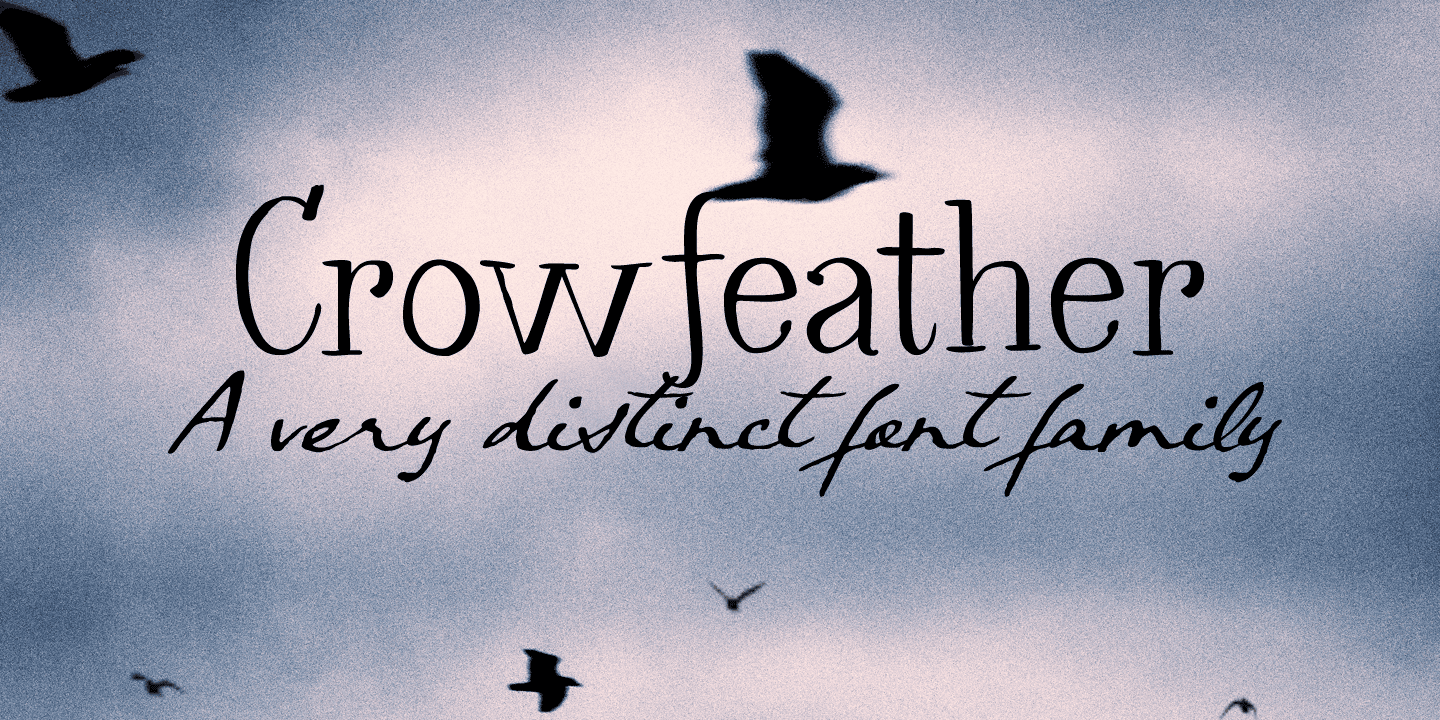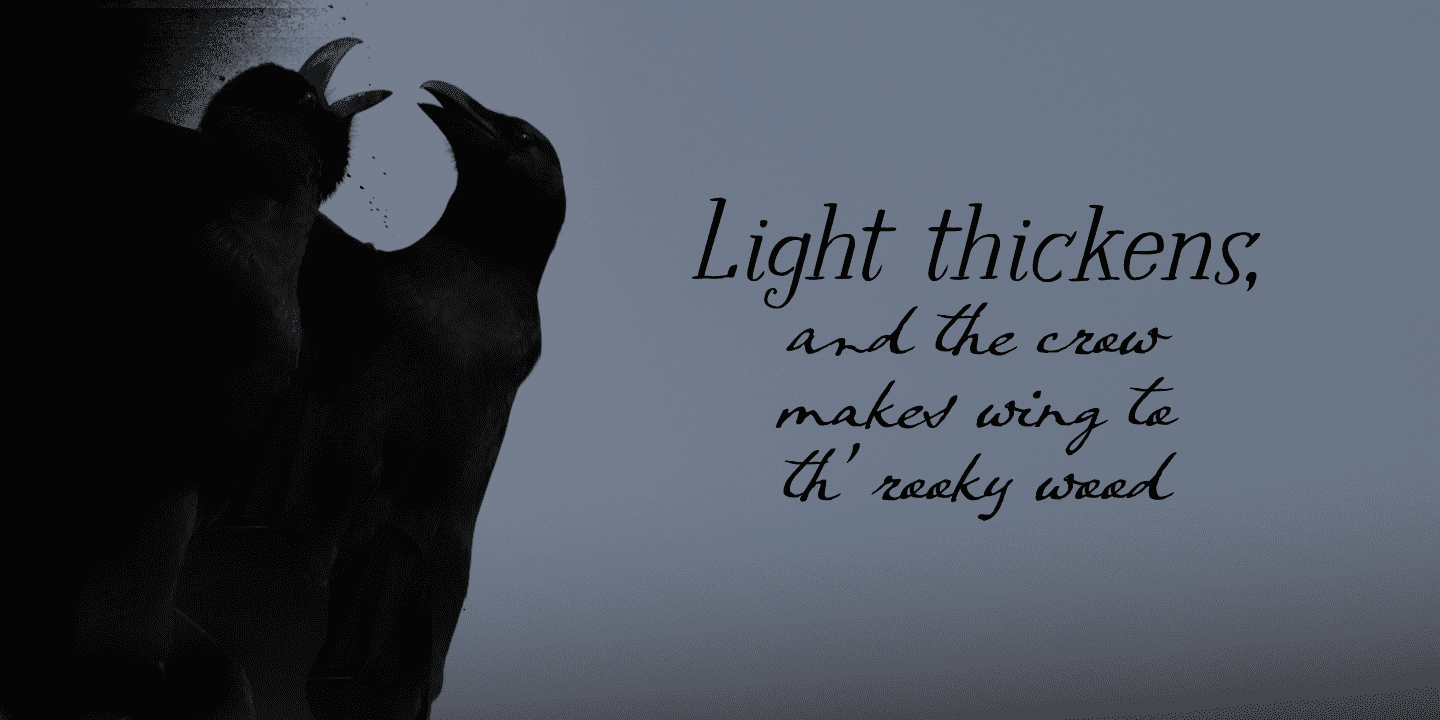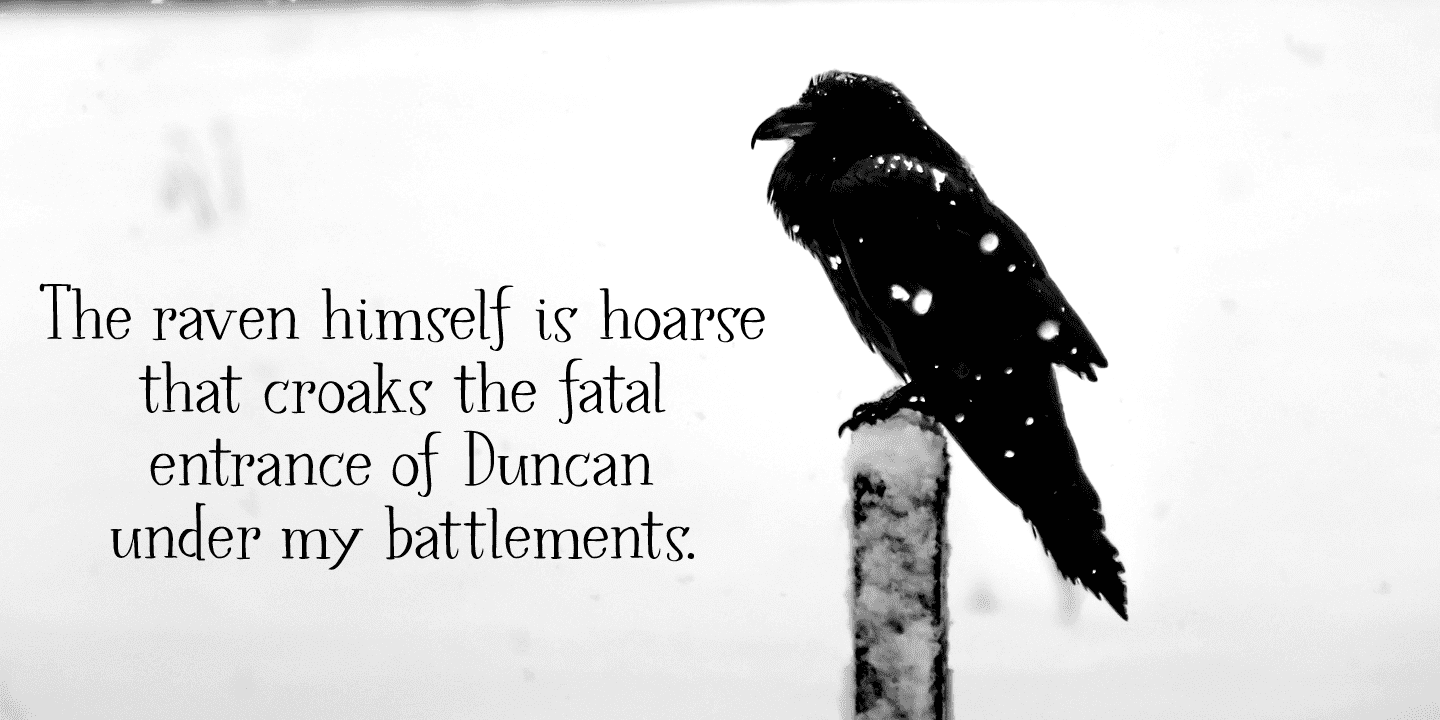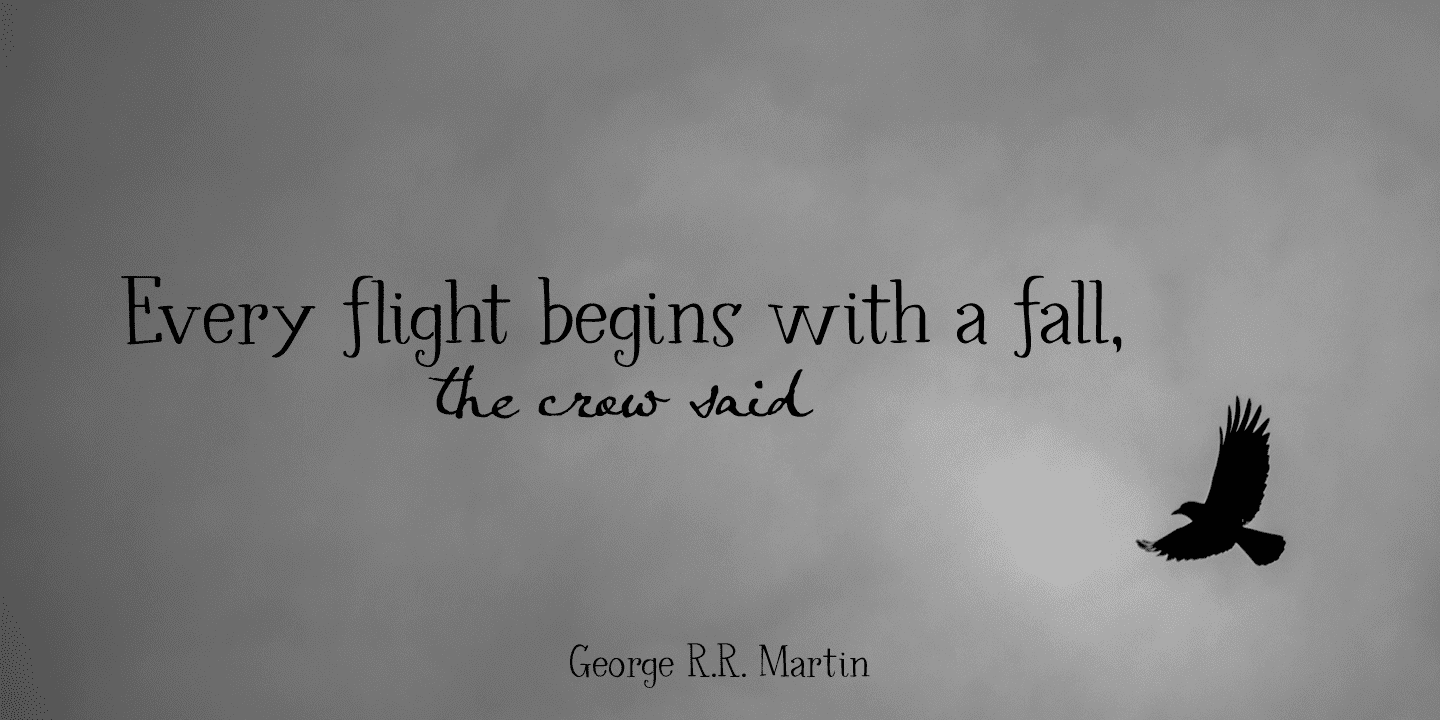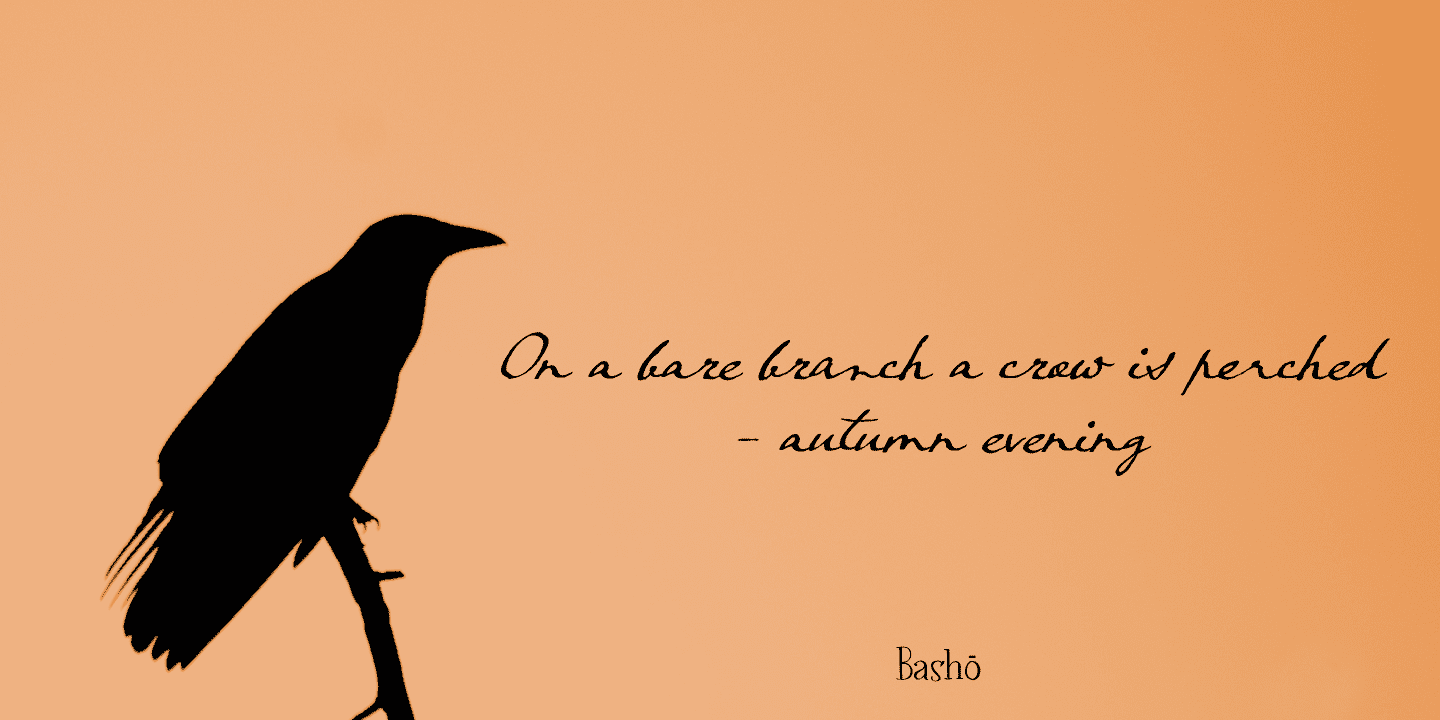
Crowfeather Family (4 fonts)
Crowfeather is a family of two distinct fonts: a classic Serif and an old school script font. They work really well together!